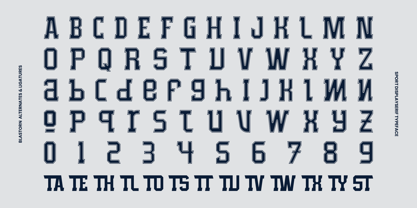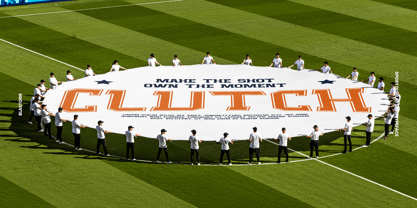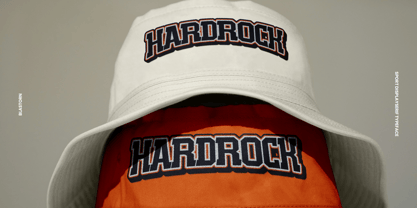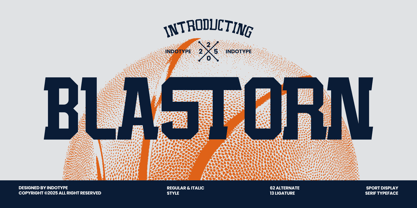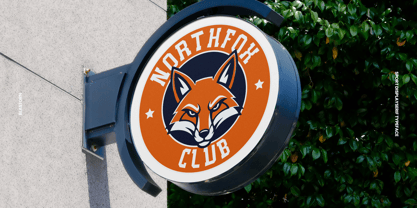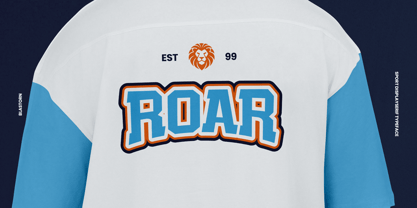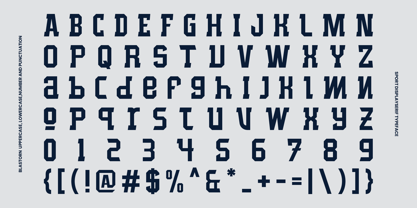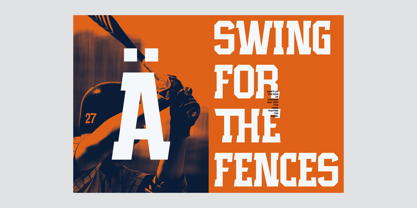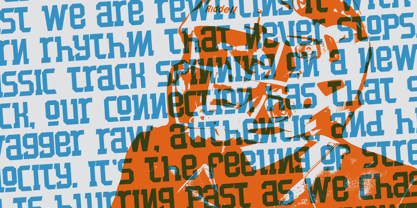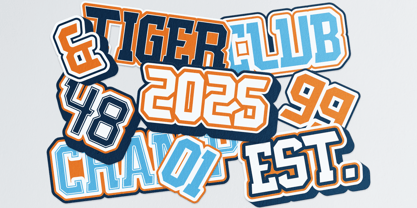
IT Blastorn
por Indotype
La familia tipográfica IT Blastorn fue diseñada por Frederik Aristaputra y publicada por Indotype. IT Blastorn contiene 2 estilos y opciones de paquete familiar. Más información sobre esta familia
Blastorn is a high-energy, dynamic display serif built for the fast-paced world of sports, fitness, and action-oriented branding. Its aggressive angles, sharp serifs, and muscular letterforms capture the essence of power, speed, and competition. This font doesn't just speak—it shouts with bold confidence, making it perfect for designs that need to convey strength and motion. Loaded with 62 stylistic alternates and 13 ligatures, Blastorn offers incredible flexibility to craft unique logos, custom wordmarks, and impactful headlines that stand out. Available in both a solid Regular and a slanted, forward-thrusting Italic style, it provides the versatility needed for team identities, athletic apparel, event promotions, and any project that demands a winning visual impact. • Ideal for: Sports Team Logos, Athletic Apparel, Fitness Branding, Energy Drink Labels, Esports, Event Posters, Action Sports Marketing. • Classification: Serif, Display, Slab Serif, Sport. • Attributes: Energetic, Bold, Aggressive, Dynamic, Powerful, Masculine, Competitive.
Diseñadores: Frederik Aristaputra
Fundición: Indotype